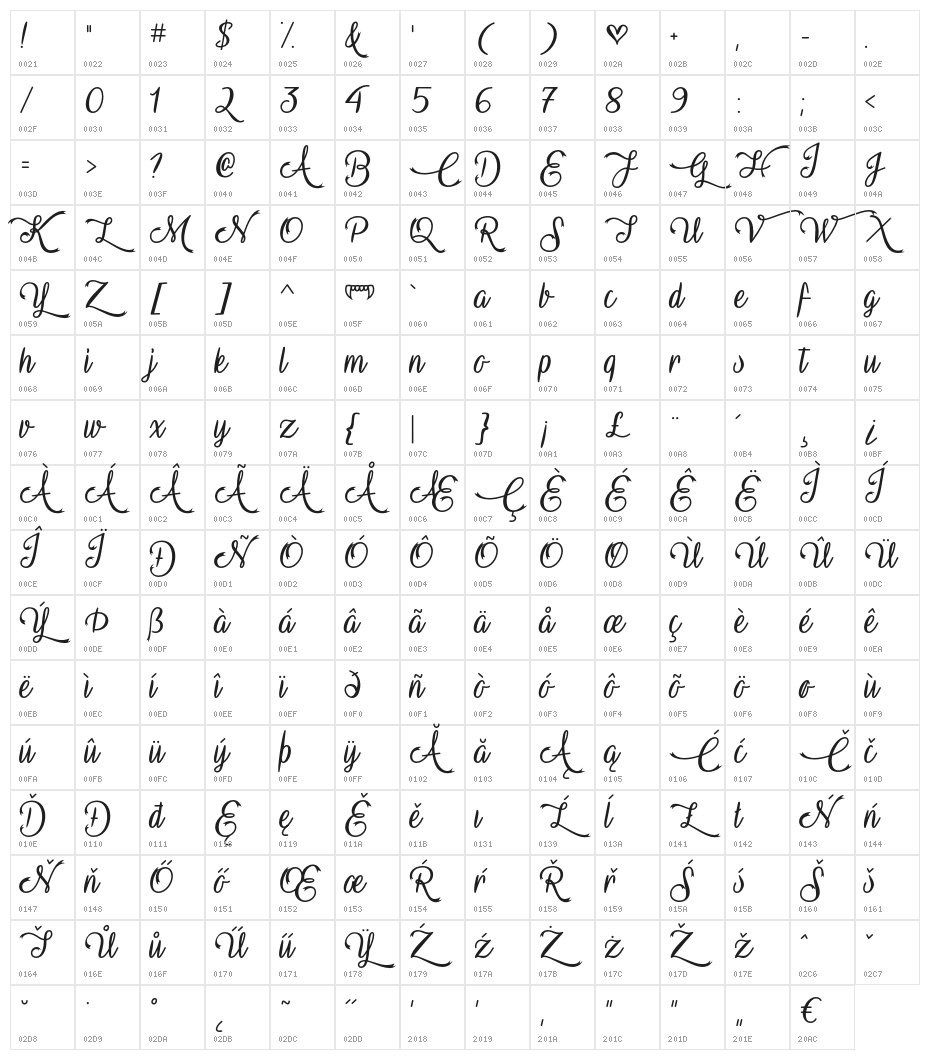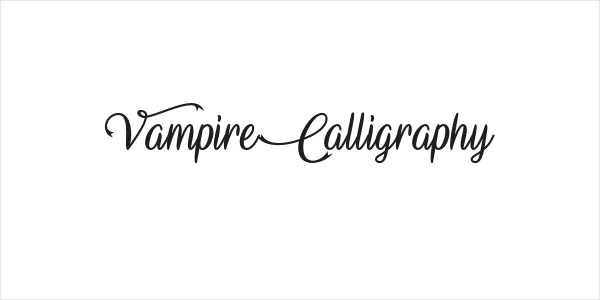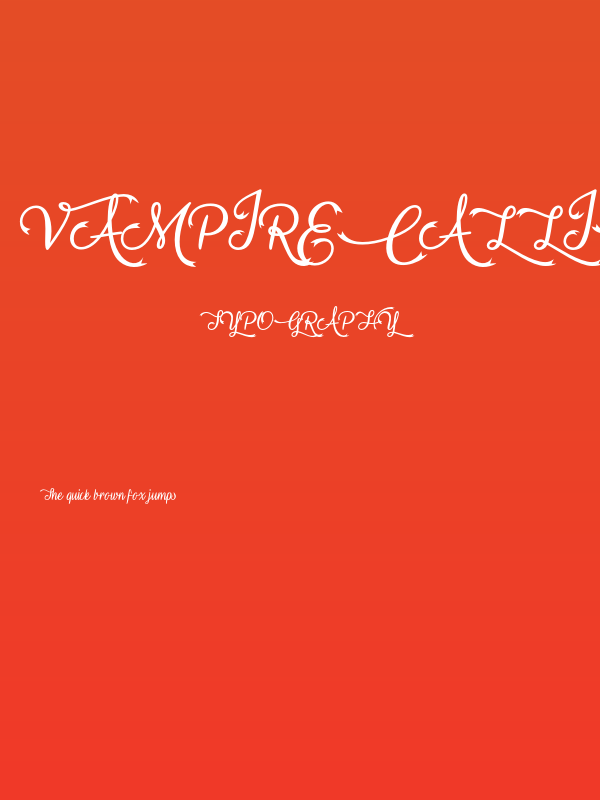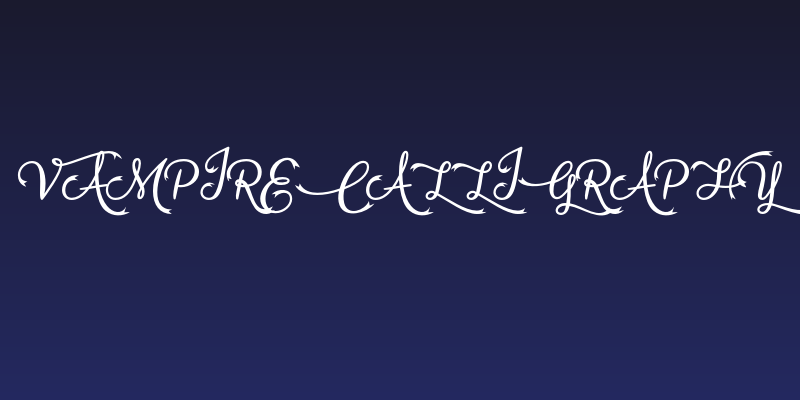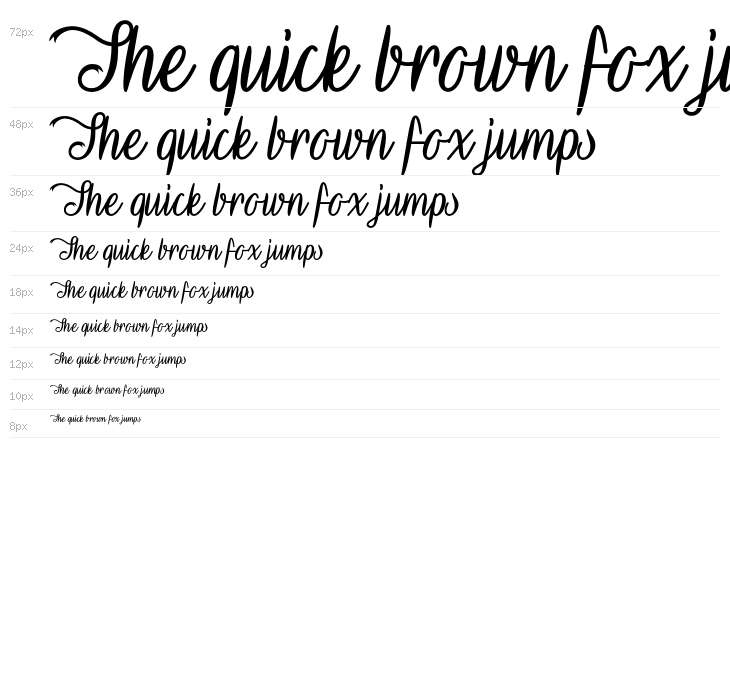
VampireCalligraphy Font
VampireCalligraphy Description
This font features an elegant and flowing calligraphic style, characterized by its ornate and decorative letterforms. The uppercase letters are particularly elaborate, with intricate loops and flourishes that give them a sense of movement and grace. The lowercase letters maintain a more subdued elegance, with smooth curves and a consistent stroke width that enhances readability. The numerals are stylish yet clear, making them suitable for various design applications. Special characters are thoughtfully designed, integrating seamlessly with the overall aesthetic. This font's unique blend of sophistication and readability makes it ideal for projects that require a touch of elegance and flair.
| Proposed Projects | Ideal for wedding invitations, luxury branding, elegant packaging, and decorative signage. |